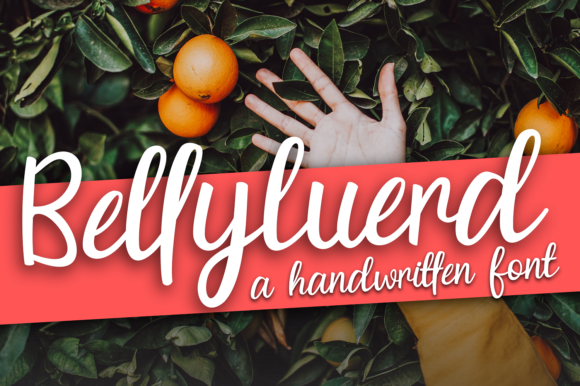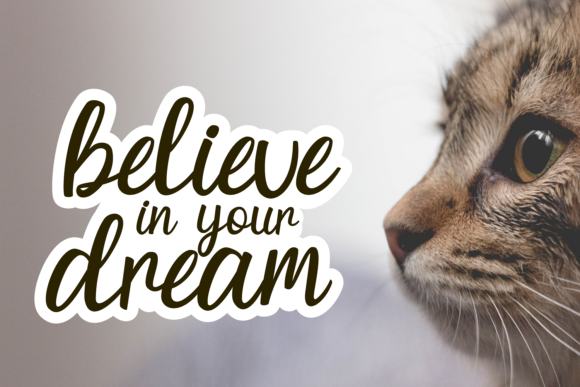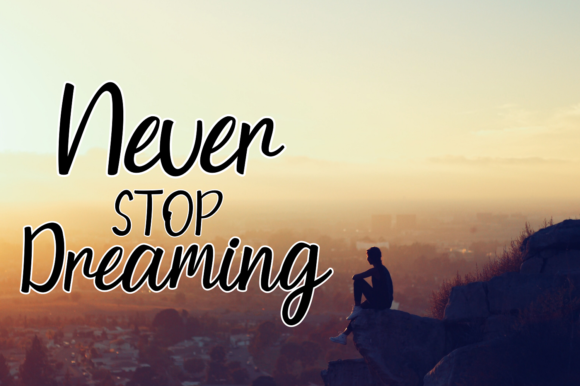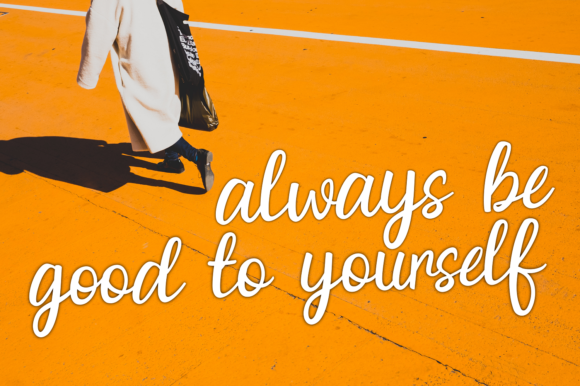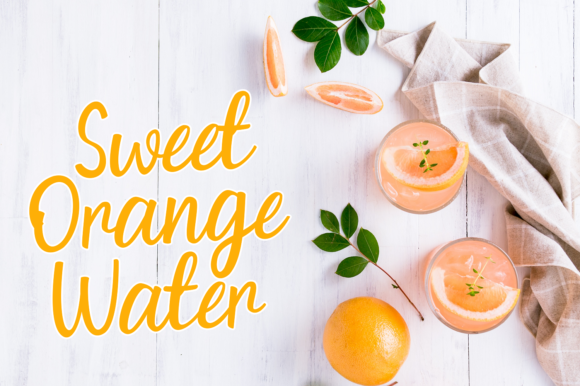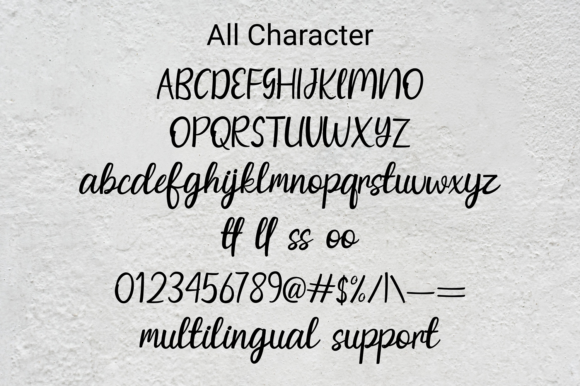
Bellyluerd Font
About Bellyluerd Font
Bellyluerd feel unique, playful and incredibly dynamic. This gorgeous script will turn any design project into a true standout.